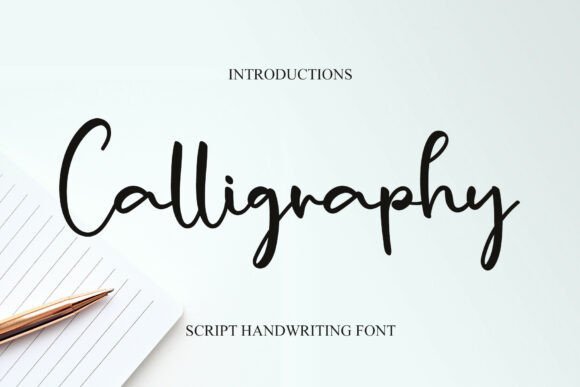
The Timeless Allure of Handwritten Touch: Unveiling the Calligraphy Font
Have you ever stumbled upon a beautifully handwritten letter or a vintage postcard, and felt an instant connection to the person who penned it? That’s the magic of handwritten touch, and it’s exactly what the Calligraphy Font embodies.
This elegant script handwriting font is designed to evoke a sense of nostalgia and personal connection, featuring fluid, flowing strokes that look as if they were penned just moments ago. As a designer, you’ll appreciate the Calligraphy Font for its ability to add a touch of authenticity and warmth to your projects. Whether you’re creating a high-end travel blog or intimate event stationery, this font provides the perfect balance of legibility and artistic flair.
With its sophisticated yet approachable character, the Calligraphy Font is a valuable addition to any designer’s toolkit. Pair it with simple, clean sans-serif fonts to create a modern, high-contrast look that’s perfect for editorial layouts and fashion branding.
Key Features of Calligraphy Font
- Unique Characteristics: Calligraphy Font features intricate, hand-drawn lettering with subtle flourishes and elegant connections between letters, giving it a distinctive, high-end feel.
- Font Variations: Calligraphy Font comes in a range of styles, from formal to casual, allowing users to choose the perfect tone for their design.
Review of Calligraphy Font
Overall, I think the Calligraphy Font has some nice features, but it’s not without its limitations. Here are my thoughts:
- The font has a beautiful, elegant feel to it, making it perfect for wedding invitations, formal events, or any project that needs a touch of sophistication.
- The font is highly customizable, allowing you to adjust the size, color, and spacing to fit your design needs.
- The font supports a wide range of languages, making it a great choice for international projects.
- The font can be quite busy, with intricate details that may be difficult to read at smaller sizes.
- The font doesn’t come with a bold weight, which may limit its use in certain design scenarios.
- The font may not be suitable for digital use, as it may not render well at smaller sizes or on certain devices.
In terms of overall impression, I think the Calligraphy Font is a great choice for print projects, but it may not be the best fit for digital use. With some customization and care, it can be a beautiful addition to any design project.
Tips for Getting the Most Out of Calligraphy Font
Use a calligraphy font to add a touch of elegance and sophistication to your designs.
Experiment with different font sizes, colors, and combinations to create unique effects.
Use a calligraphy font to create a focal point in your design, such as a headline or title.
Consider using a calligraphy font in conjunction with other decorative elements, such as flourishes or borders, to create a cohesive look.
Common Use Cases for Calligraphy Font
Luxury branding and marketing materials
Fine art and illustration
Formal event invitations and announcements
Alternatives to Calligraphy Font for Designers
Lobster Font is a fun, casual script font that is perfect for titles, headings, and short paragraphs. It has a playful feel and is great for creative projects. Compared to Calligraphy Font, Lobster has a more relaxed and modern look, making it ideal for digital designs.